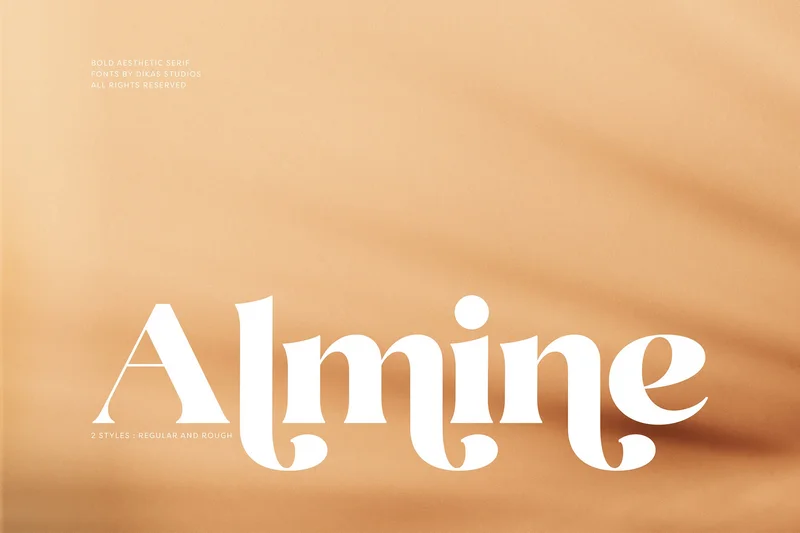
Almine – A Bold Aesthetic Serif
Almine is a bold serif typeface with a refined aesthetic shape that combines classic elegance with a touch of retro charm. Its strong contrast and stylish curves make it perfect for headlines, logos, and any design that needs a bold, eye-catching look. The set includes two styles — Regular and Rough — giving you both a clean and hand-drawn touch. Alternate characters are included to add more expressiveness and creative freedom in display use. Inspired by retro typography, Almine beautifully blends aesthetic flair with timeless vintage appeal.